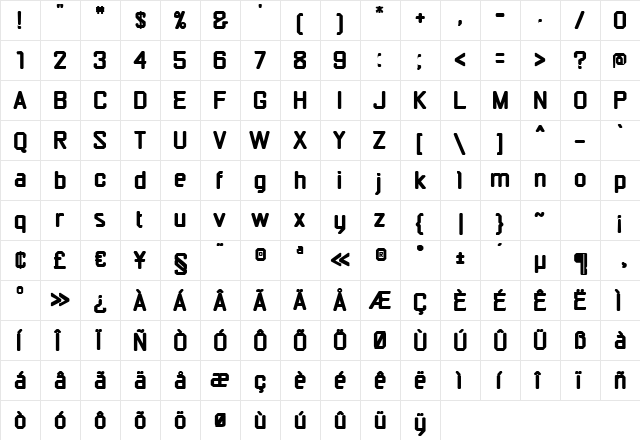
Escom-Extra Regular
Design Context for Escom-Extra Typeface
Escom-Extra takes a measured approach to typography — its balanced proportions and neutral character make it a reliable workhorse for both digital and print work.